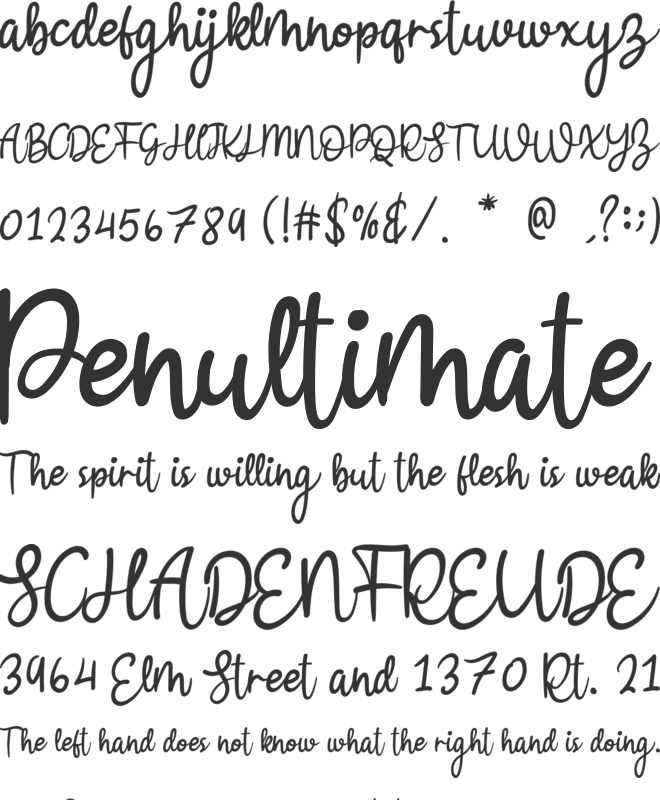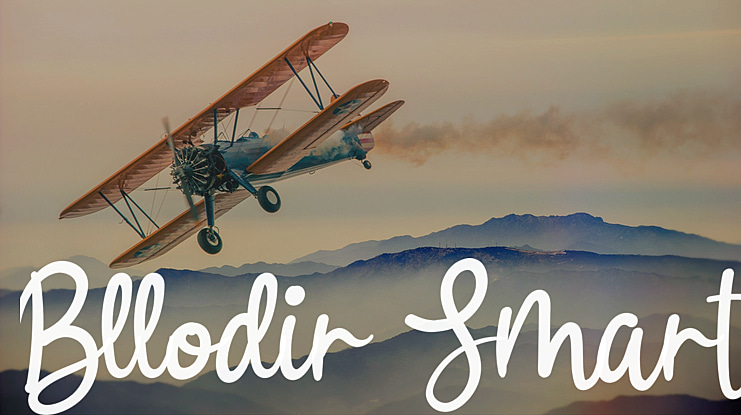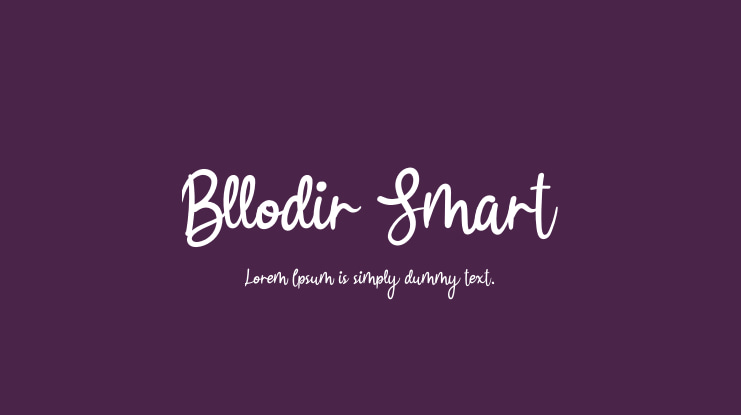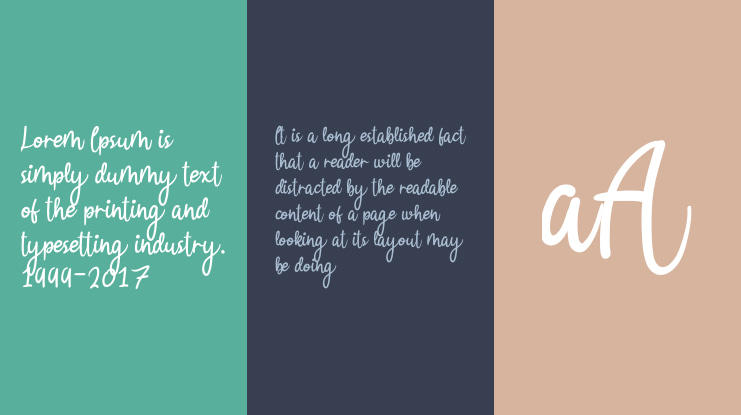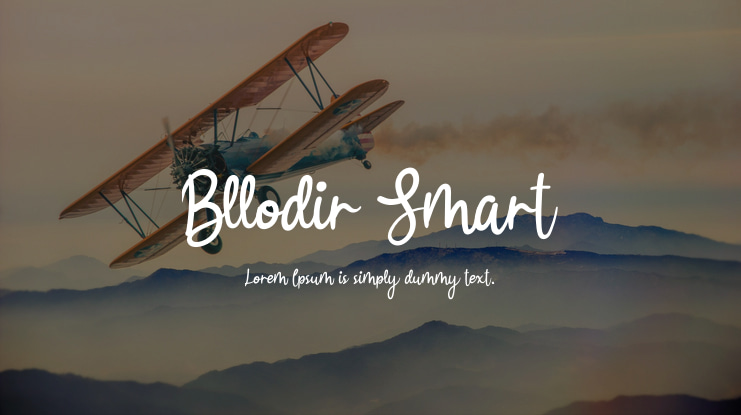
Bllodir Smart Font
DETAILS the latest style letters are perfect for wall displays, wedding invitations, social media post logos, advertisements, product packaging, product designs, labels, photography, watermarks, invitations, stationery, and any project that requires taste handwriting.